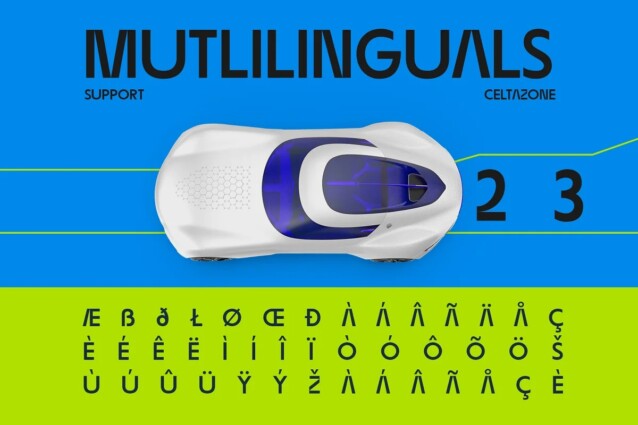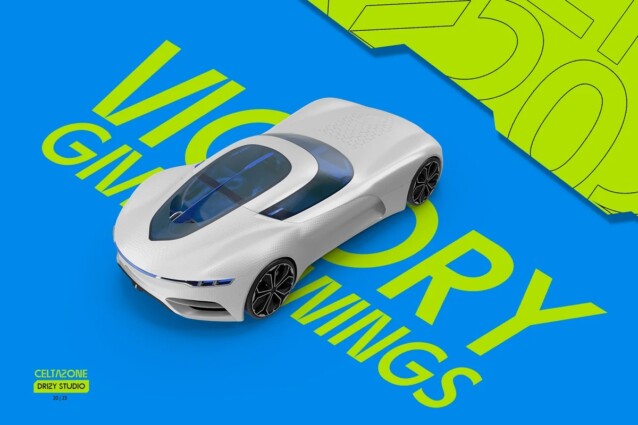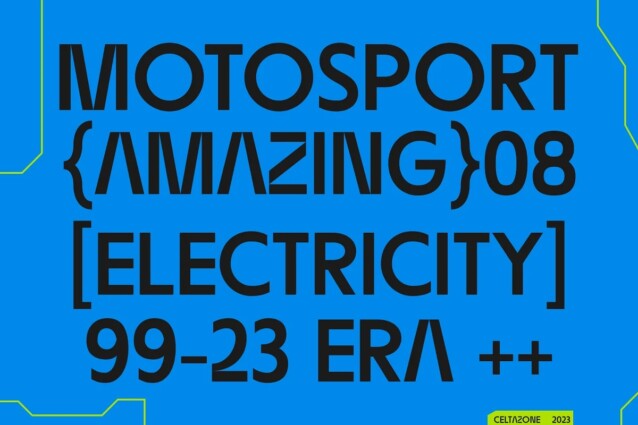
Celtazone Font
Celtazone Font is a proportionate sans serif typeface manufactured by Drizy. The smooth and simple design gives off a professional yet friendly vibe. It’s a window into a dynamic, futuristic world where athleticism, technology, and imagination collide. This cutting-edge sport combines the agility of traditional athletics with the power of science fiction, creating a thrilling, otherworldly experience that captivates both participants and spectators.